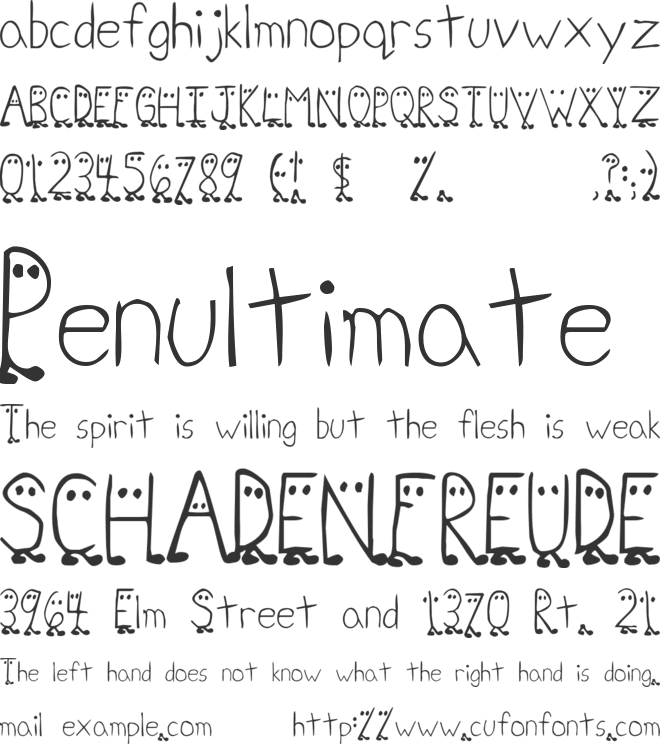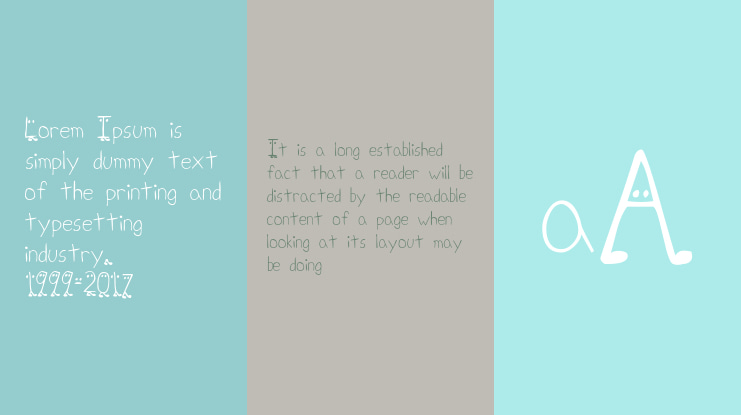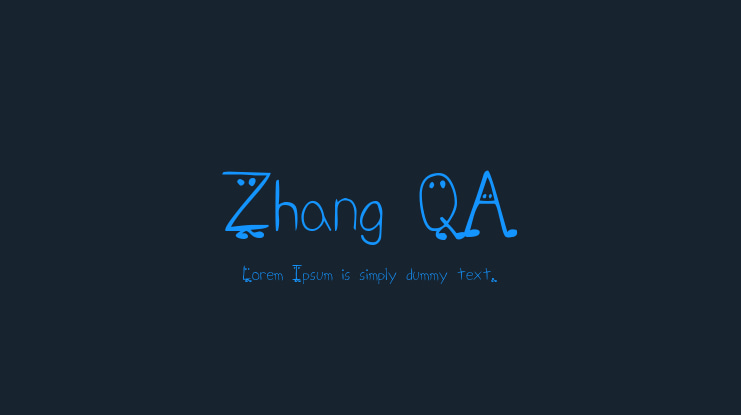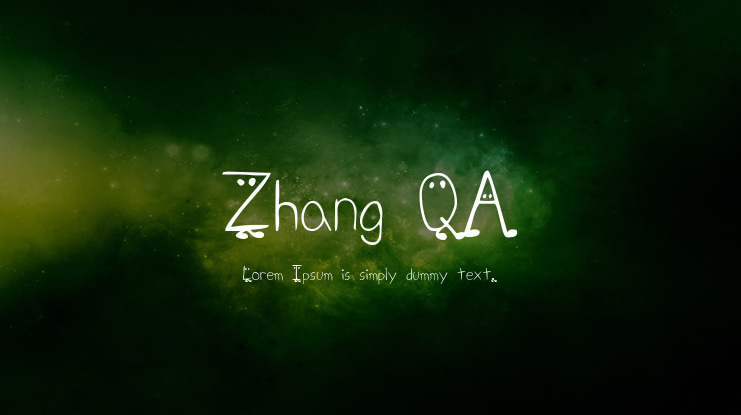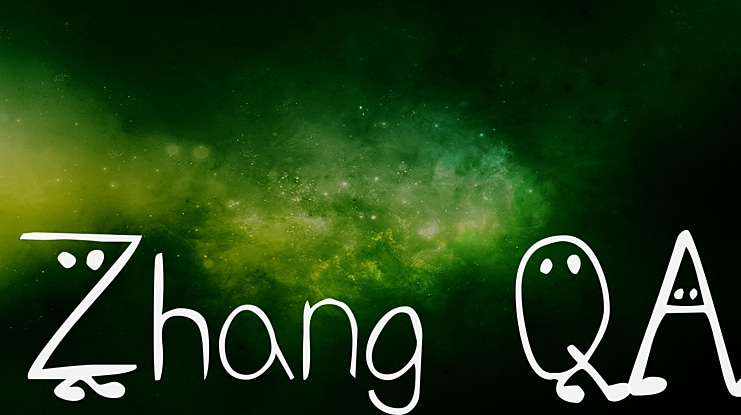
Zhang QA Font
Ben McGehee
This version includes capital and lowercase letters, some commonly used punctuation and a few international characters (by special request).I major in Business at LA Tech. Everyone that majors in business has to take Quantitative Analysis 233. It is an extremely boring class. My teacher was especially boring. He was not from America, and could not speak English very well. He compensated for this by not speaking very much. My teacher's name was Hongkai Zhang. Since his lectures inspired this font, I felt it would do justice to name it after him and his class.The uppercase of this font was designed to look like letters running away. That's what half the class was doing the day I drew this font. The other half wanted to. Except me. I was having fun drawing this font.